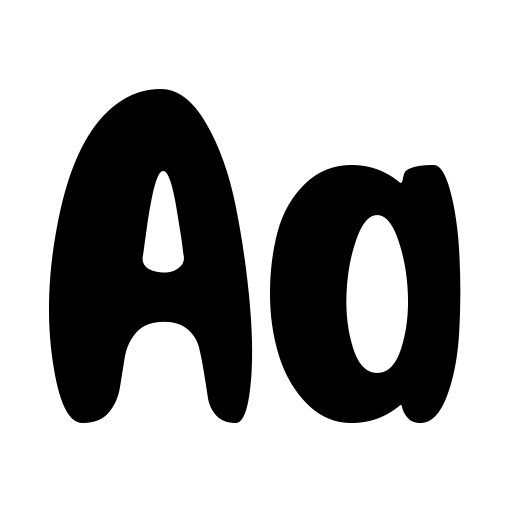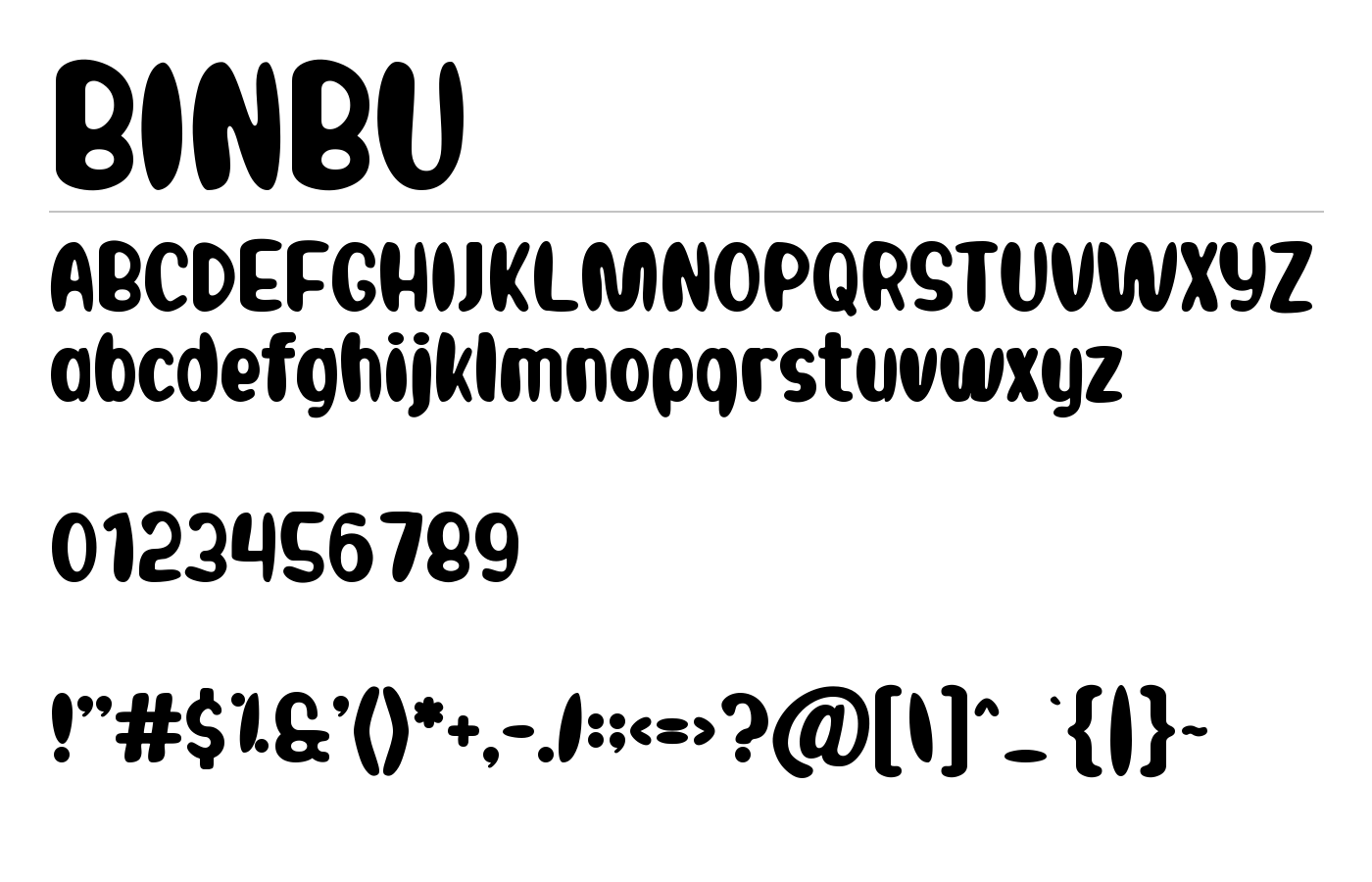
BINBU is a bold, rounded sans serif font with a playful and friendly character. Its thick, soft strokes and slightly condensed letterforms create a casual, approachable vibe perfect for informal designs, children’s books, or fun branding projects. BINBU’s abundant curves and lively shapes make it ideal for headlines, logos, and eye-catching displays that want to convey warmth and cheerfulness.
BINBU Font
About BINBU Font
| Font family | BINBU Font |
| Designer | Maikohatta |